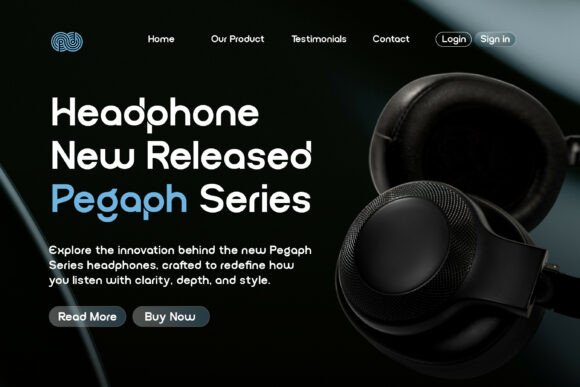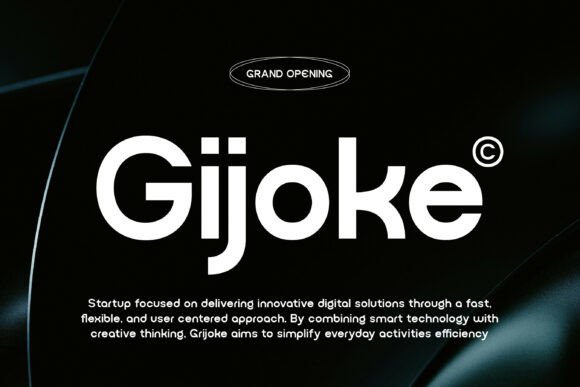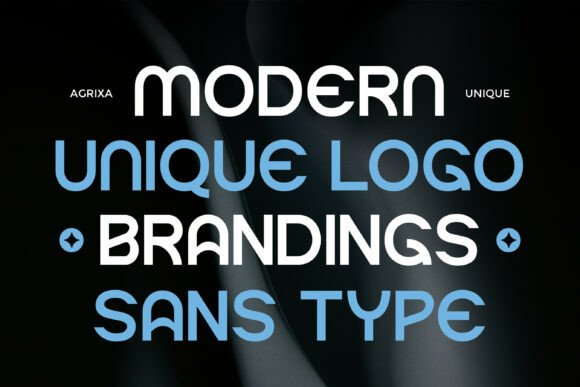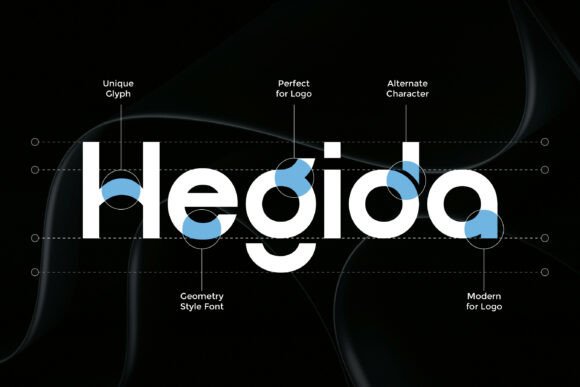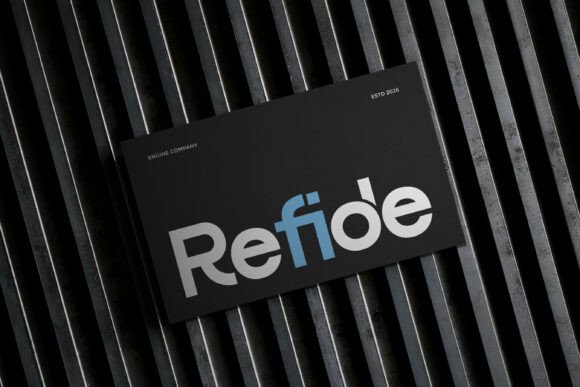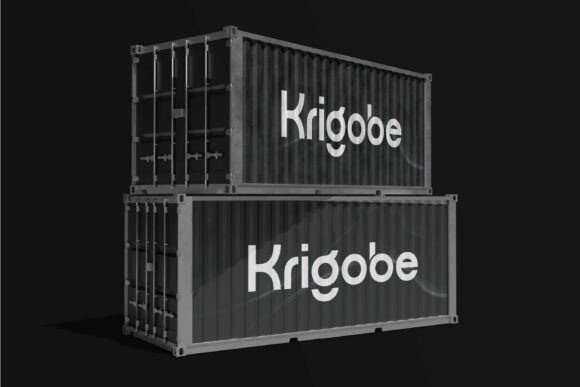
The Perfect Font for the Modern Designer
Have you ever stared at a blank canvas, wondering how to bring your creative vision to life? You’ve poured over inspiration boards, experimented with different color palettes, and finally, it’s time to choose the perfect font to tie everything together. That’s where the Bogea Font comes in – a modern geometric sans typeface designed to elevate your designs and leave a lasting impression.
Bogea Font is more than just a font – it’s a tool that helps you craft professional, polished typography that’s both versatile and contemporary. With its structured shapes and smooth curves, this font is perfect for logo creation, brand identities, and any design project that requires a touch of sophistication.
Whether you’re a seasoned designer or just starting out, the Bogea Font is an invaluable asset to your toolkit. Its unique alternates allow you to explore endless creative possibilities and build distinctive typography that truly reflects your brand’s personality.
Bogea Font Key Features
- Unique Characteristics: The font features a unique blend of modern and traditional elements, with intricate details and subtle nuances that set it apart from other sans-serif fonts.
- Font Weight: The font family includes light, regular, bold, and extra bold weights, allowing designers to choose the perfect weight to suit their design needs.
Bogea Font Review
Overall, I think Bogea Font is a decent addition to any designer’s toolkit. There are some aspects where it truly shines, making it worth considering for your next project. ✨
- Unique aesthetic: Bogea Font has a distinctive, quirky feel that can add a lot of character to your designs.
- Legibility: Despite its unconventional style, Bogea Font is surprisingly easy to read, making it suitable for a wide range of applications.
- Support for multiple languages: Bogea Font covers a broad range of languages, including Latin, Cyrillic, and Greek scripts.
- Not ideal for body text: Due to its playful, decorative nature, Bogea Font is best suited for headings, titles, and other display typography.
Overall, I think Bogea Font is a solid choice for designers looking to add some visual interest to their projects. While it may not be perfect, its unique aesthetic and legibility make it a worthwhile addition to any font collection.
For the most out of Bogea Font, use it for titles, headings, and other emphasis areas. It’s perfect for modern and creative designs, especially in the realms of branding, advertising, and graphic design. Use it in combination with bold and italic styles to add visual interest.
Alternatives to Bogea Font
Playfair Display is an elegant, high-end serif font that is perfect for luxury brands, high-end fashion, and classic designs. It has a similar feel to Bogea Font, but with a more refined and sophisticated look. Use it when you want to convey a sense of luxury and sophistication.
Great Vibes is a modern, cursive font that is great for creative and artistic designs. It has a more relaxed and casual feel compared to Bogea Font, but still maintains a touch of elegance. Use it when you want to convey a sense of fun and playfulness.